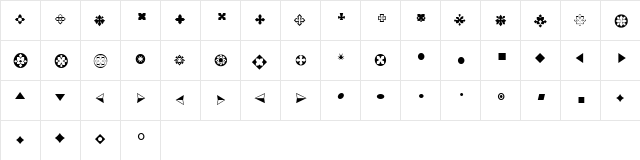
Bullets ADF Regular
| Foundry | Arkandis Digital Foundry. |
| Designer | HARENDAL Hirwen |
Design Context for Bullets ADF Typeface
Bullets ADF takes a measured approach to typography — its balanced proportions and neutral character make it a reliable workhorse for both digital and print work.